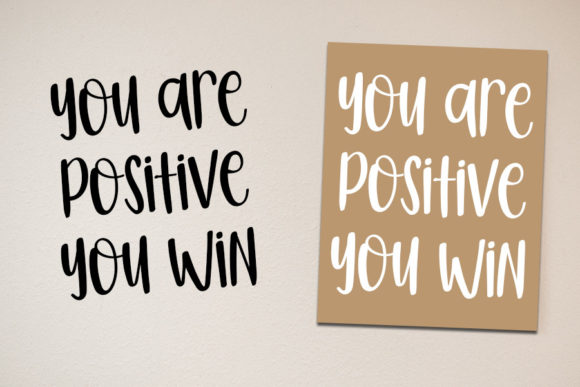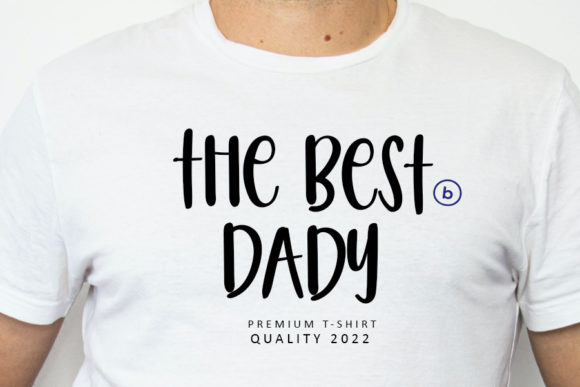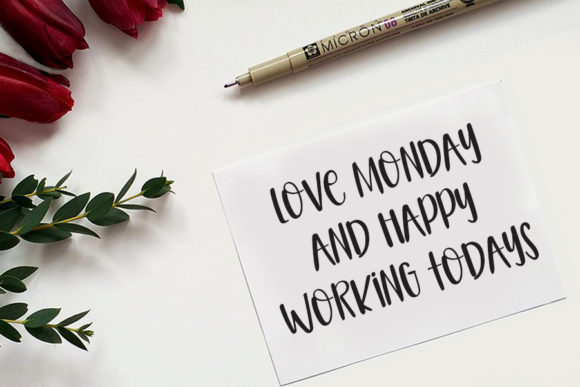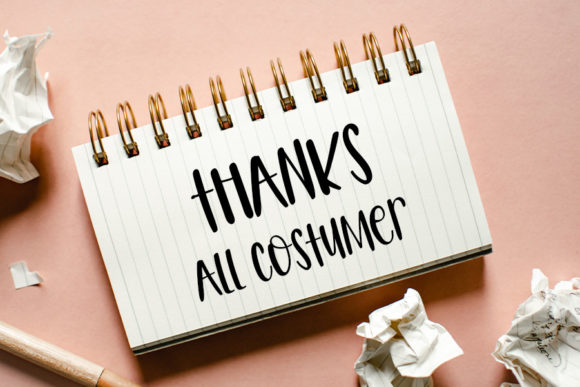
Introduction to Hotstle Font
As a designer, you know that the perfect font can make or break a creative project. There’s that moment when you stumble upon a design resource that sparks inspiration, and everything falls into place. For many of us, that moment comes when we discover the perfect handwritten font to add a touch of elegance and sophistication to our work.
That’s where the Hotstle Font comes in – a trendy and chic handwritten font that’s sure to elevate your designs to the next level. With its timeless classic calligraphy style, this font is perfect for designers looking to add a touch of sophistication and personality to their projects. Whether you’re working on a branding project, a wedding invitation, or a social media graphic, the Hotstle Font is the perfect addition to your design arsenal.
Key Features of Hotstle Font
- Unique, modern design style making it perfect for contemporary creative projects
Honest Review: Hotstle Font
Here are some of the things that I think work well: ✨
- Wide range of styles and weights to choose from, making it versatile for any project
- Easy to read, even at small font sizes
However, I did notice a few limitations: ⚠️
- Some of the characters may not be as detailed as I would like, particularly the symbols and punctuation marks
- The font may not be as suitable for body text, as it can be a bit too bold and attention-grabbing
Overall, I would say that the Hotstle Font is a solid addition to any design resource library. It’s easy to use, looks great, and is free to download. While it may not be perfect, I think it’s definitely worth checking out for your next creative project.
Tips for Getting the Most Out of Hotstle Font
For the best results, use Hotstle Font in conjunction with other design elements, such as images and graphics. This font is perfect for creative projects that require a unique and eye-catching design. Experiment with different font sizes, colors, and styles to create a look that is all your own.
Hotstle Font is perfect for any design project that requires a unique and creative touch. Some common use cases include:
- Graphic design projects, such as posters and flyers
- Web design projects, such
Alternatives to Hotstle Font
Abril Fatface is a high-quality, elegant script font suitable for creative projects, such as invitations, posters, and magazine covers. It’s available for free download and features a transparent background. This font is ideal for designers who need a sophisticated, yet playful touch for their design resource.
Compared to Hotstle Font, Abril Fatface has a more refined and luxurious feel, making it perfect for high-end branding and creative projects.
Playfair Display is a luxurious, high-quality serif font designed for use in headings and titles. It’s available for free download and features a transparent background. This font is ideal for designers who need to add a touch of elegance to their design resource.